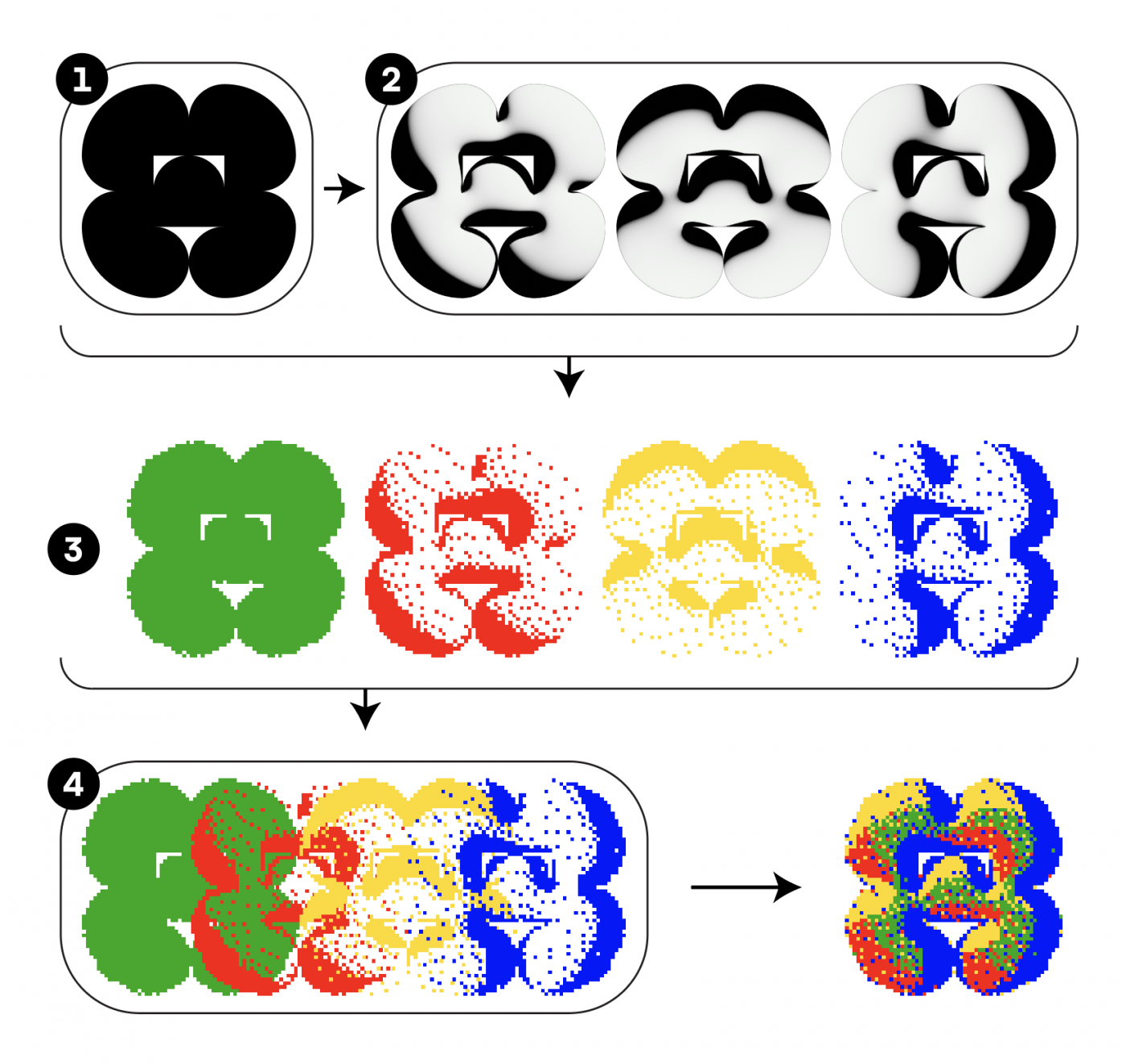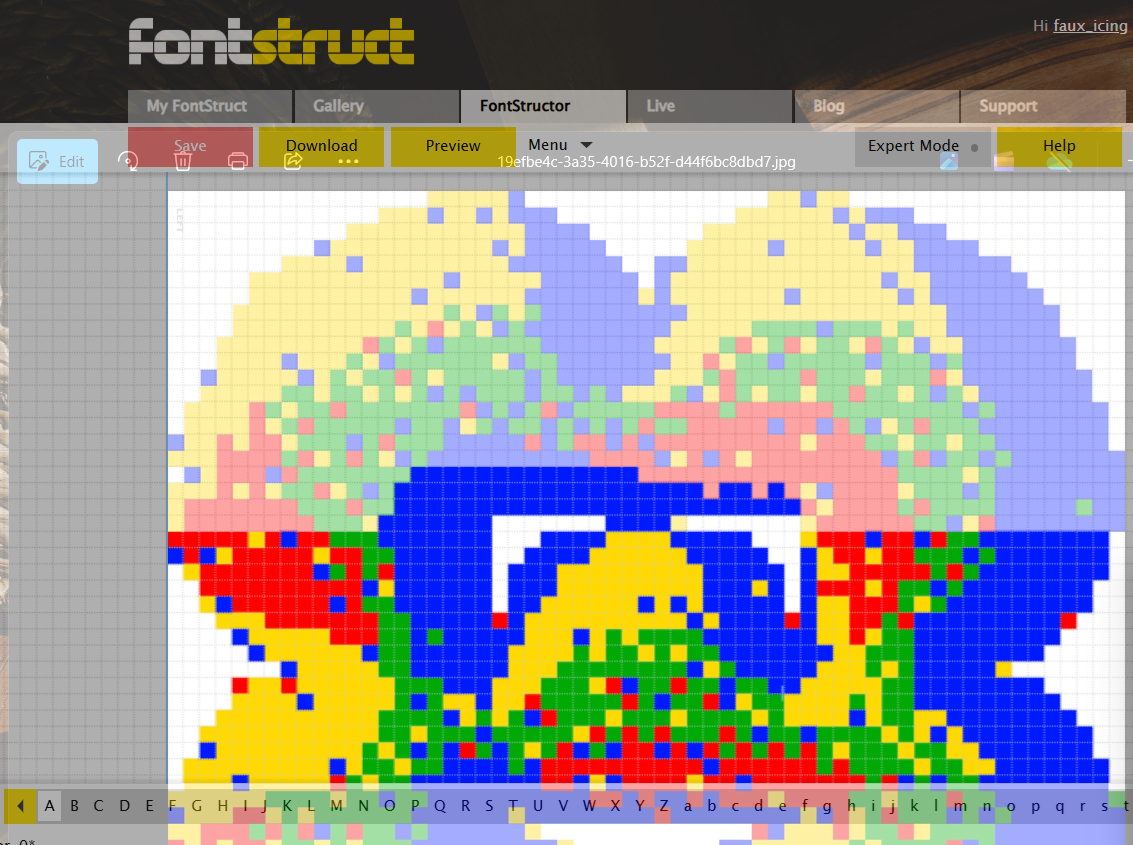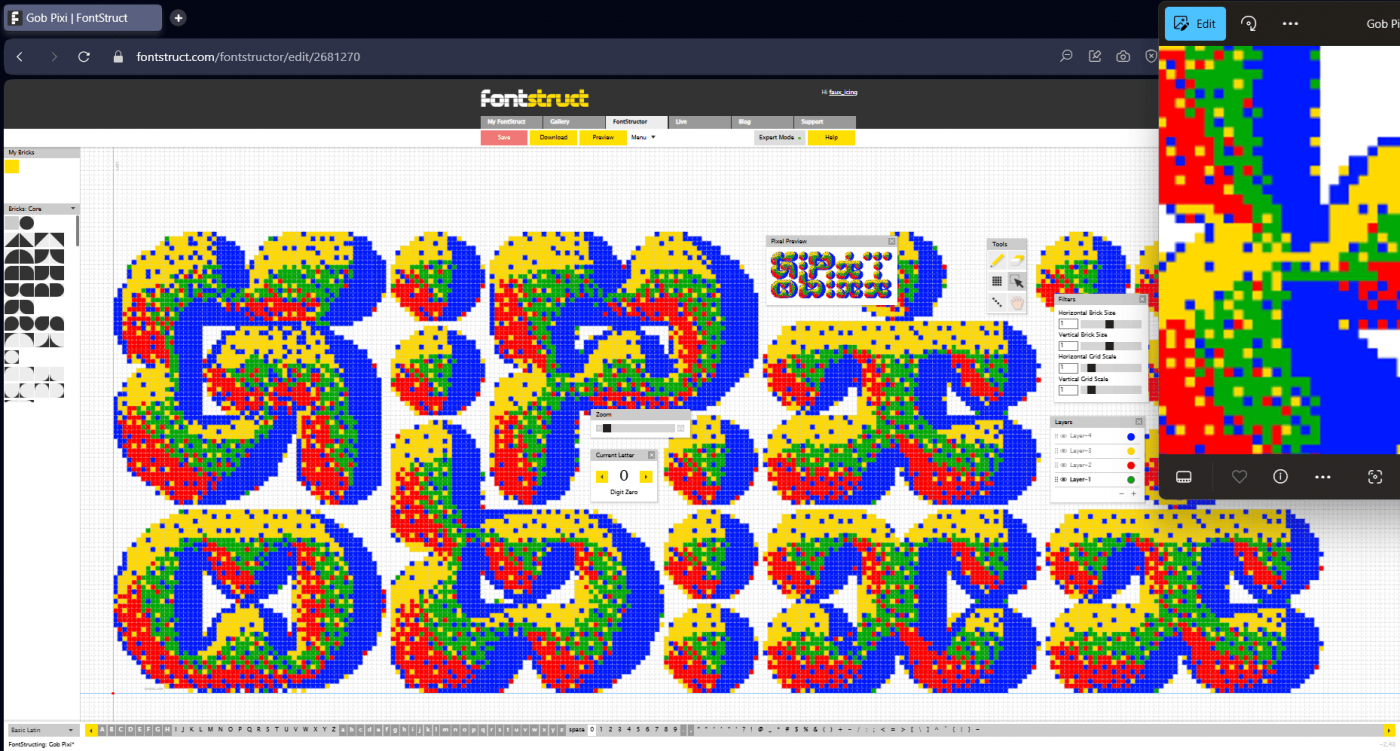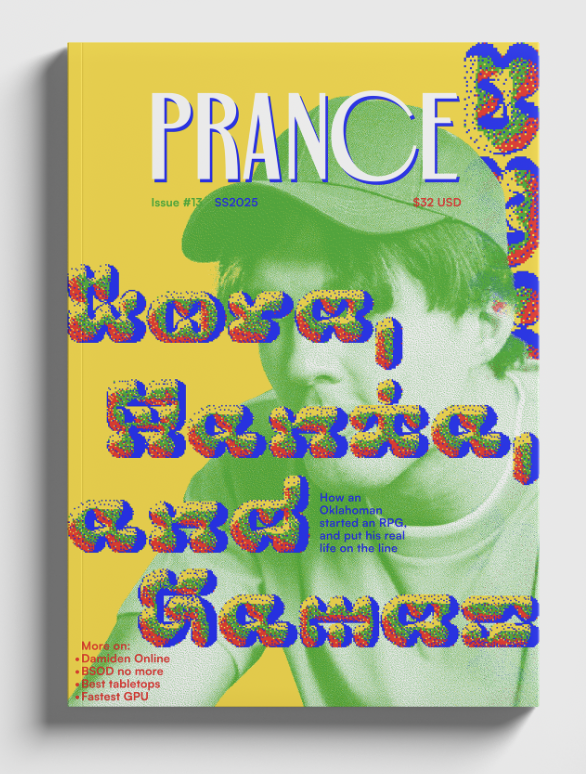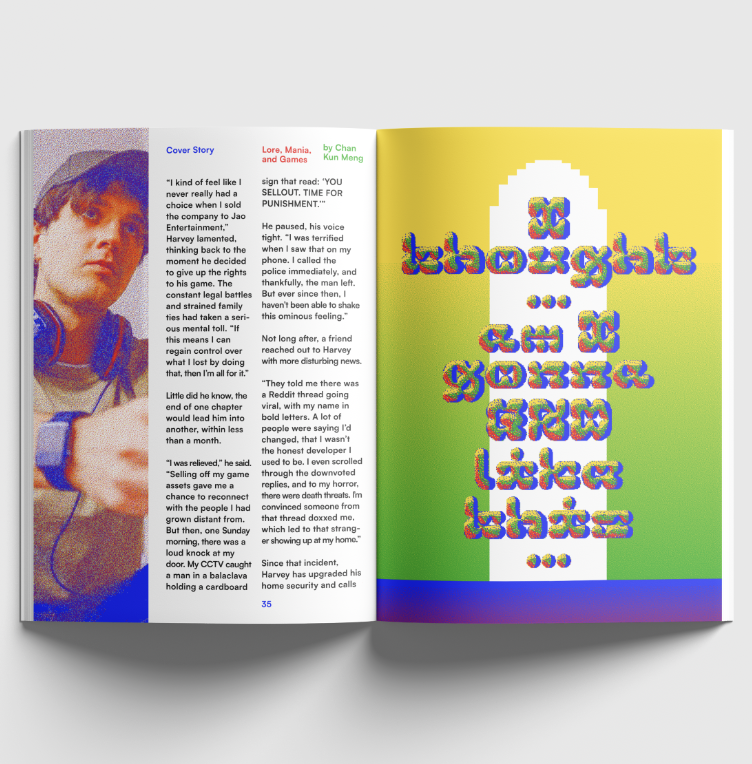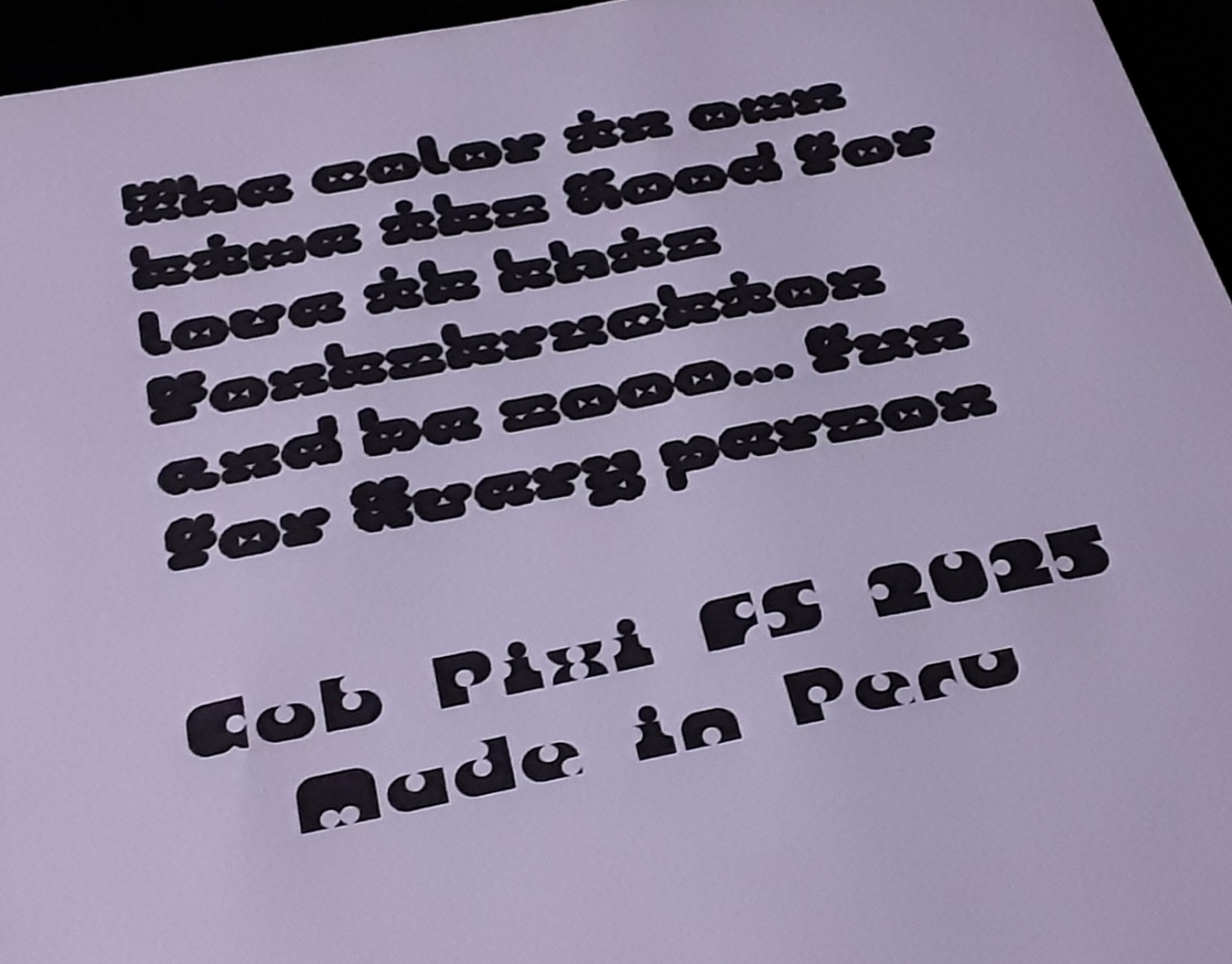
• Gob Pixi is an amalgamation of different experiments with colour, display type and visual effects throughout the years of working with a comfortable, personal design palette.
Having been obsessed with grain textures and primary + secondary colours throughout the start of 2020s, I was moved to translate that into typography after seeing Kilotype's Lofi Forest "fizzy-fying" an otherwise sharp-looking Roman/Serif.
Also, I have worked on a type project that got me to layer different coloured shadows and highlights above each other, so this is my attempt at translating that effect onto another typeface that I've shelved for quite a while now. (I happened to come up with something similar to Get Yourself Connected by chance and didn't know what to make do with it.)
1) The typeface that I made via FontStruct (unreleased)
2) Turning the glyphs into 3D with shadows adjusted to different angles (via Illustrator)
3) Turning the solid and 3D glyphs into bitmap images via (Photoshop), and adding colours
4) Layering the bitmap glyphs into one composition, resulting in a colourful type that's "inflated" and pixelated
Finally, the colourful bitmap glyph is transferred into FontStruct by overlaying a translucent FontStructor window above an image output, dotting the colours (initially) pixel by pixel, not much different to diamond painting. After a fair amount of glyphs was done, I started copying already-done glyphs and modifying them to adapt to other glyphs so as to quicken the process.
(It is at this point that I really hoped that Fonstruxius is still available.)
It is very cool. In fact, I even think it could become an interesting technology in pixel graphics, like normal maps in 3D graphics.
I managed to finished the capitals and numerals. I'll also leave better type samples below.
Lowercase letters are my personal favorite :D
I love this font, hope the colorless version will be released! :)
okay, wow, frutiger aero bubbly vibes, i like it!
good but hard to read